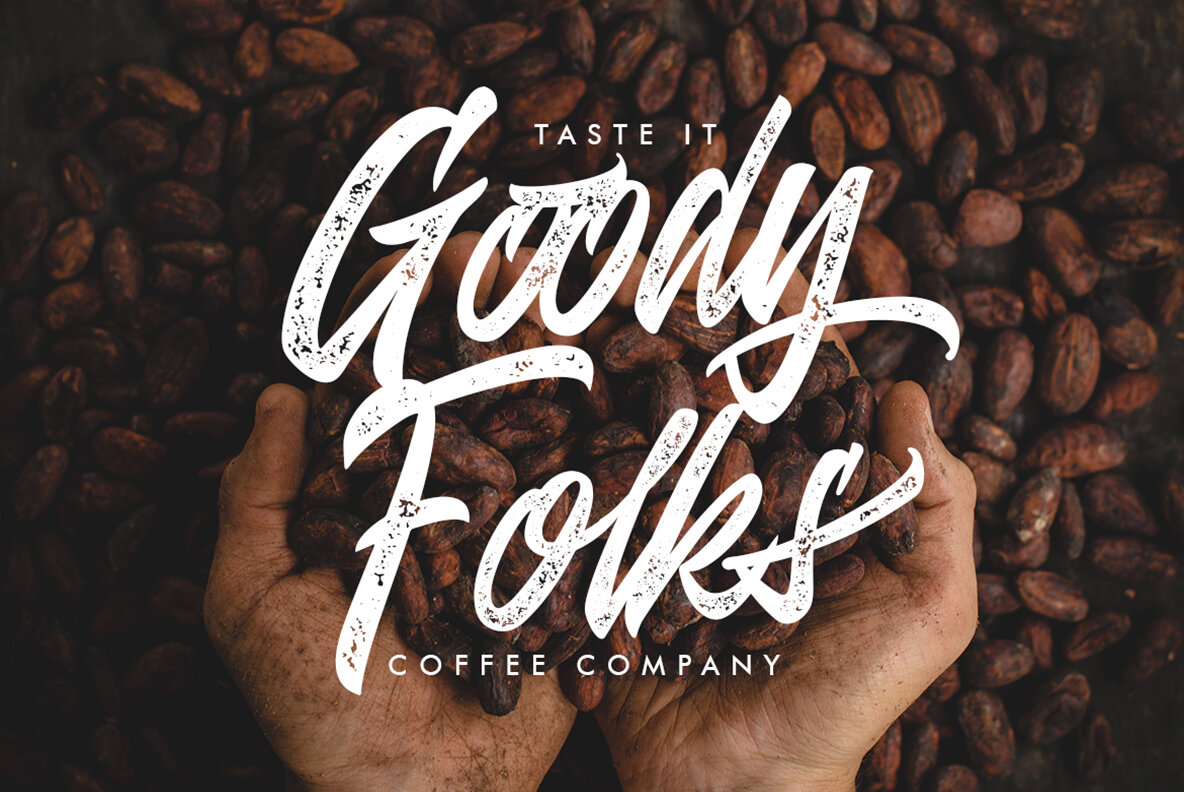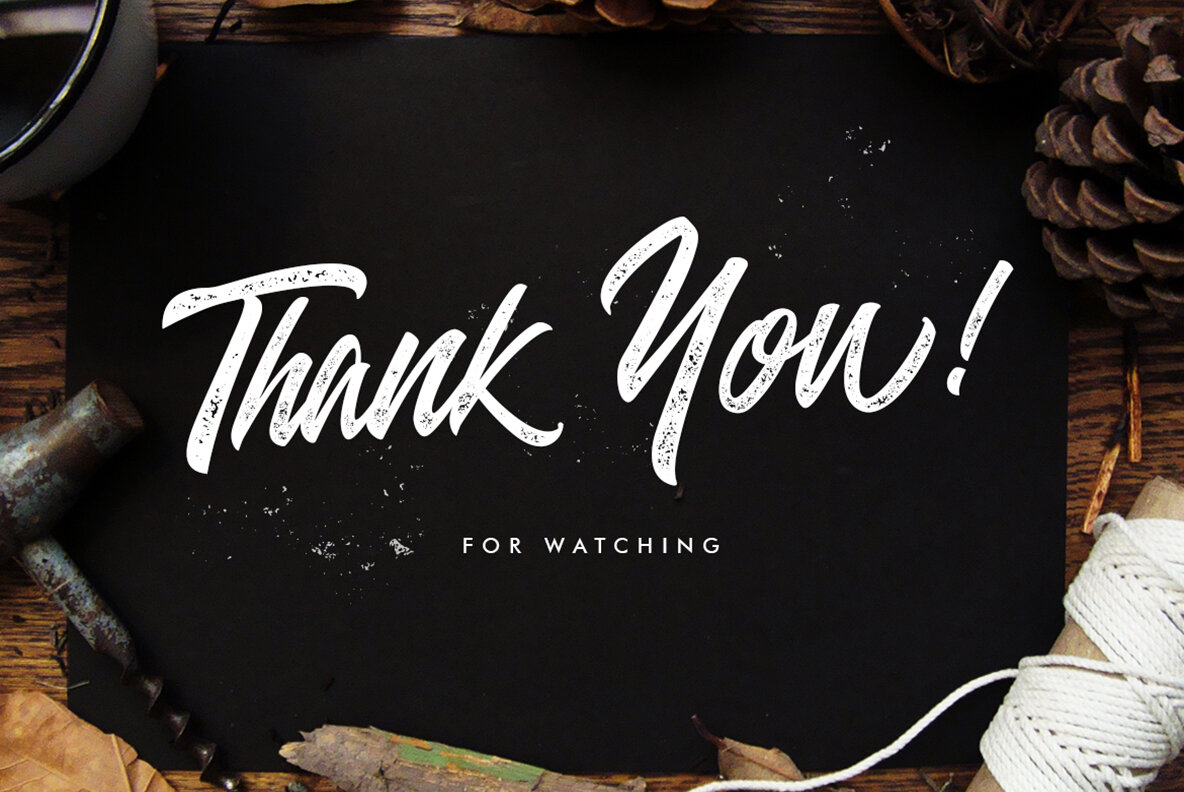
Entreaty Font
Entreaty
Entreaty Stamp
Entreaty Swahses
Entreaty Swahses Stamp
Hello! Entreaty is a bold modern handlettering script with strong style and dramatic movement.